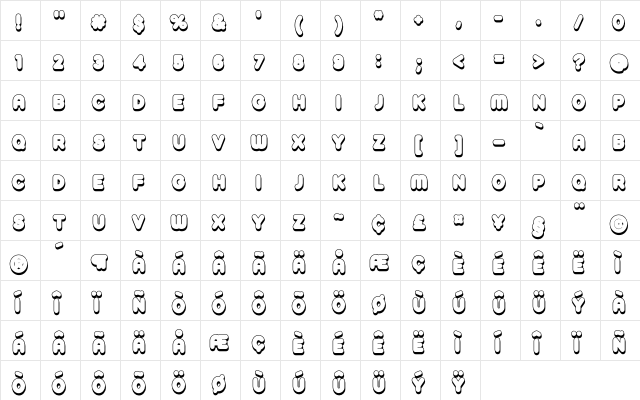
Reglisse Back
| Foundry | Youssef Habchi |
| Designer | Youssef Habchi |
Design Context for Reglisse Typeface
Reglisse is a composed and adaptable typeface that performs quietly and consistently across a wide range of design contexts.